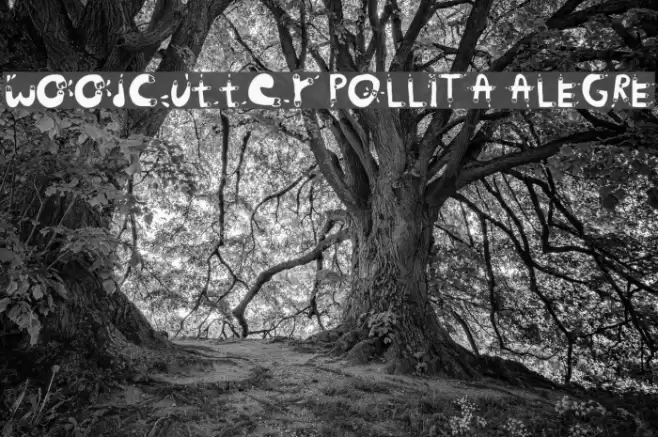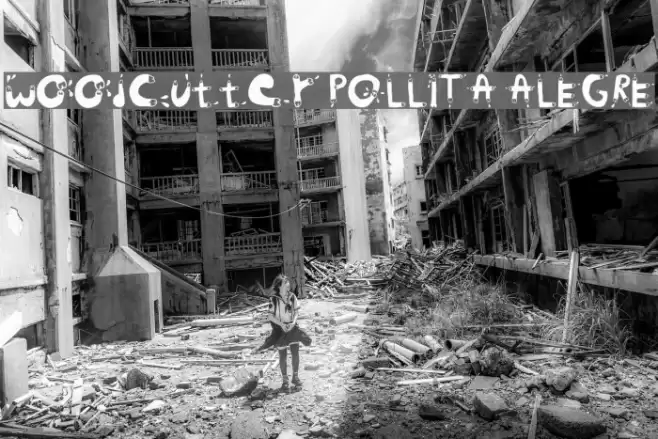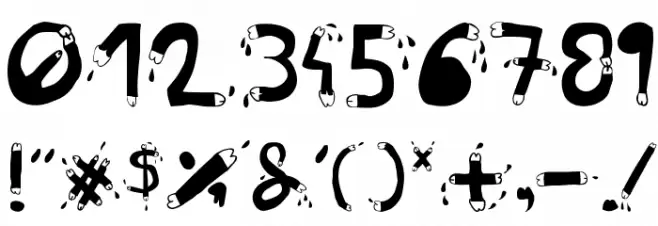
woodcutter POLLITA ALEGRE Font
woodcutter POLLITA ALEGRE Description
This playful and whimsical font features a unique design where each character is adorned with small, cartoonish elements resembling tiny feet or shoes. The letters are bold and rounded, with a distinct, hand-drawn appearance that adds a sense of fun and creativity. The uppercase and lowercase letters maintain a consistent style, with exaggerated curves and a slightly uneven baseline that enhances the casual, informal vibe. Numbers and special characters follow the same playful theme, making the font suitable for projects that require a lighthearted and cheerful touch. The overall design is eye-catching and memorable, perfect for capturing attention in a variety of contexts.
A playful, whimsical font with cartoonish elements and a hand-drawn style from Uncategorized fonts.
- Proposed Projects: Ideal for children's books, playful branding, party invitations, and creative posters.
- Overall Style: Playful, Whimsical